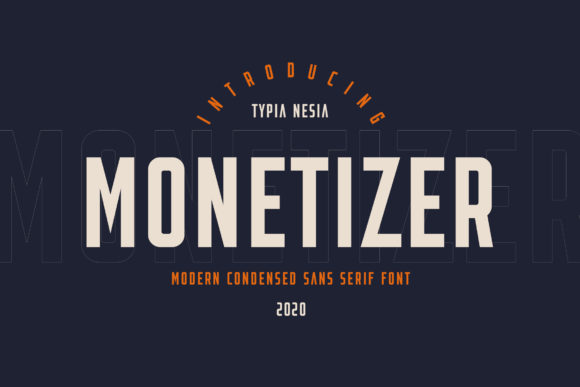
**Introducing Monetizer Font: The Ultimate Font for Captivating Storytelling**
In the realm of digital expression, where words dance across screens, there exists a font with the power to transform your creations into captivating masterpieces. Enter Monetizer, a bold and authentic display font that will ignite your imagination and leave an unforgettable mark on your readers.
Crafted by the skilled hands of Typia Nesia, Monetizer is more than just a collection of glyphs; it's an artistic tool that empowers you to weave tales that resonate with your audience. Its meticulously designed characters exude a sense of confidence and authenticity, drawing readers deeper into the world you create.
Whether you're crafting enchanting novels, captivating screenplays, or compelling marketing materials, Monetizer will elevate your words to new heights. Its carefully balanced strokes and dynamic curves effortlessly guide the reader's eye, creating a seamless flow that keeps them engaged from start to finish.
Imagine your words adorned with the bold strokes of Monetizer, each letter a testament to the depth and richness of your storytelling. Your characters will leap off the page, their personalities amplified by the font's expressive nature. Your descriptions will paint vivid pictures in the minds of your readers, transporting them to the heart of your creations.
With Monetizer, you unlock the power to:
- **Captivate and Engage Your Audience:** Its bold and authentic style commands attention, ensuring that your words leave a lasting impression.
- **Convey Authenticity and Trust:** The font's genuine character reflects the authenticity of your voice, fostering trust and credibility with your readers.
- **Elevate Your Storytelling:** Monetizer transforms your words into a work of art, enhancing their impact and elevating your storytelling to new heights.
- **Make a Lasting Impression:** The memorable nature of this font will leave an enduring�记on your readers' minds, ensuring that your creations are remembered long after the final page is turned.